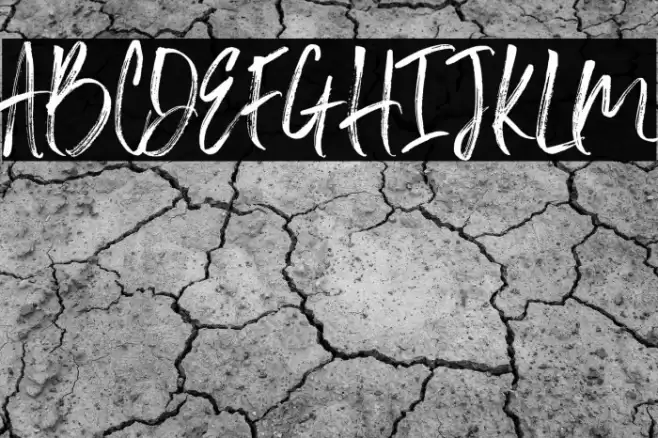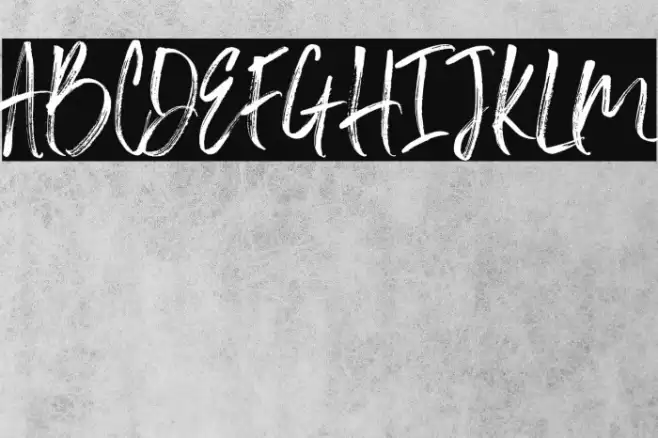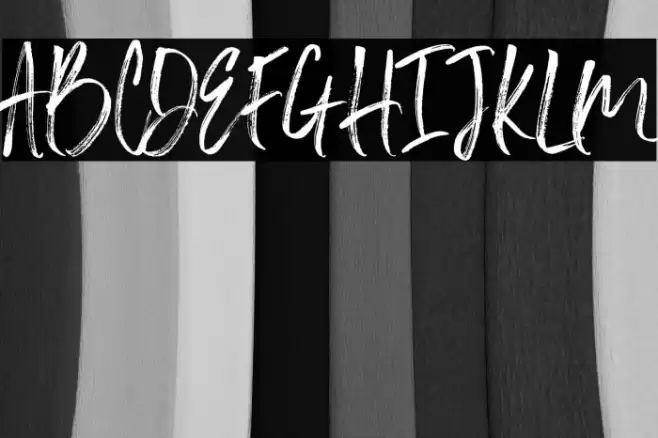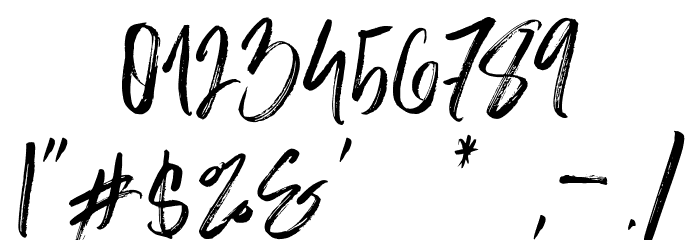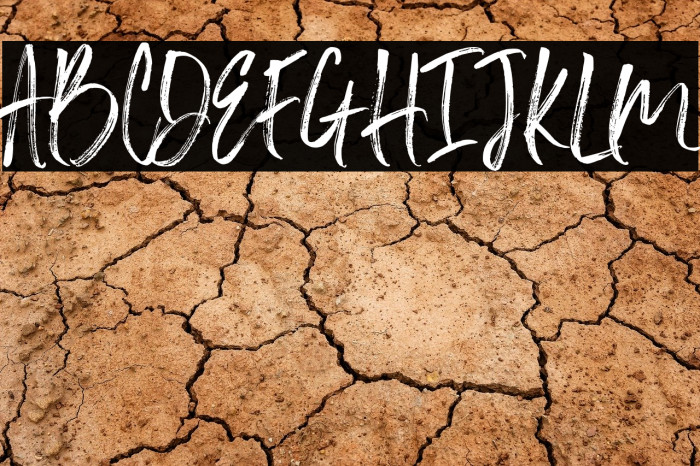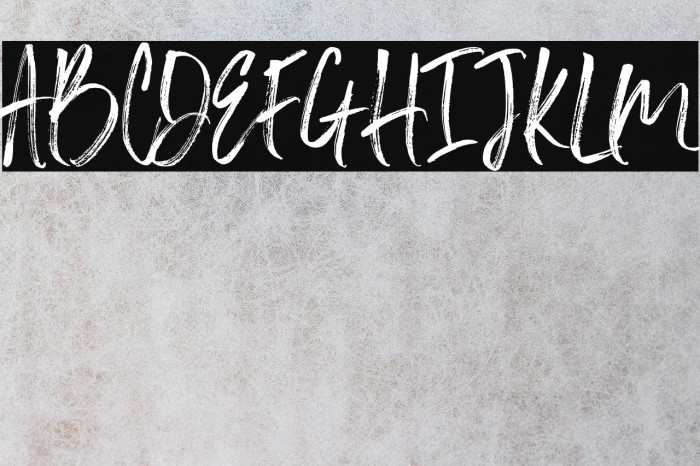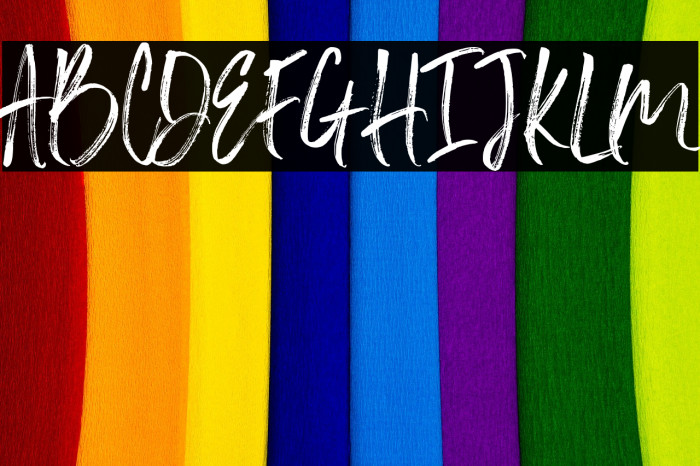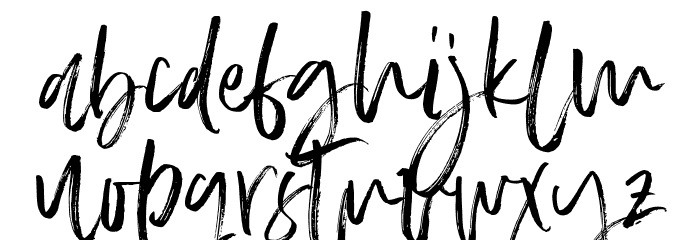
Slabor Brush Font
Slabor Brush Description
This font exudes a dynamic and energetic feel, characterized by its bold, brush-like strokes that convey a sense of movement and fluidity. The letters are crafted with a hand-drawn aesthetic, giving them a personal and artistic touch. The uppercase and lowercase letters maintain a consistent style, with varying stroke thickness that adds to the font's expressive nature. The numbers and special characters are equally bold and maintain the same brush-stroke style, ensuring a cohesive look across all characters. This font is ideal for projects that require a creative and informal vibe, such as artistic posters, event invitations, or branding for creative industries.
- Proposed Projects: Ideal for artistic posters, event invitations, and creative branding.